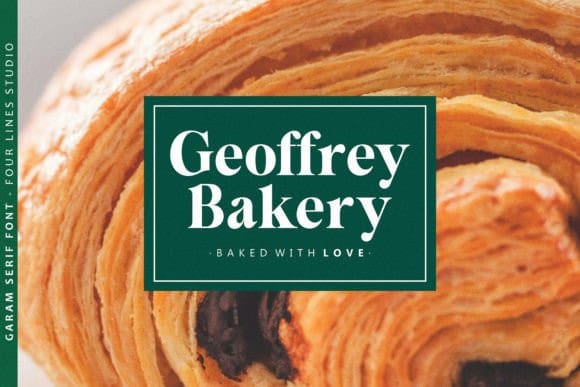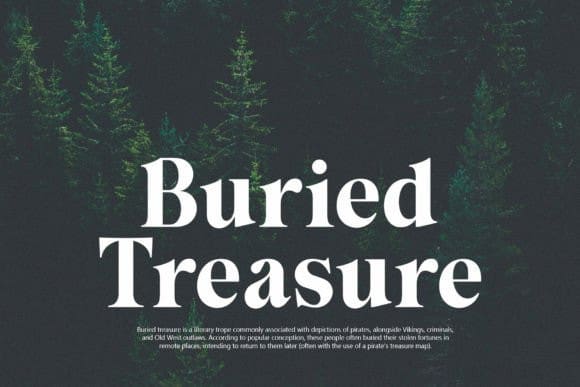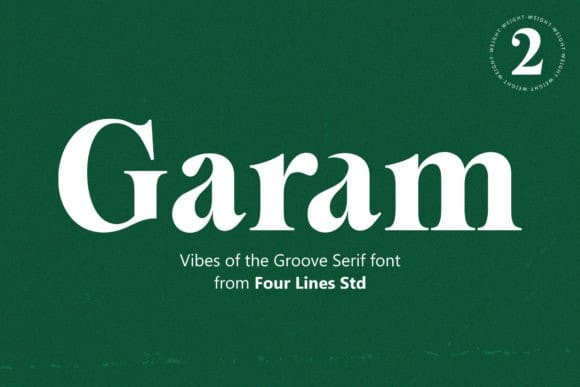
Garam Font
Garam Font is an elegant and Bold serif font distinguished by its sleek curves, making it an ideal choice for fashion branding and editorial projects. Embrace this font in your designs to unlock a myriad of creative opportunities. Moreover, this font is PUA encoded, granting effortless access to a wide array of glyphs and swashes for enhanced customization.